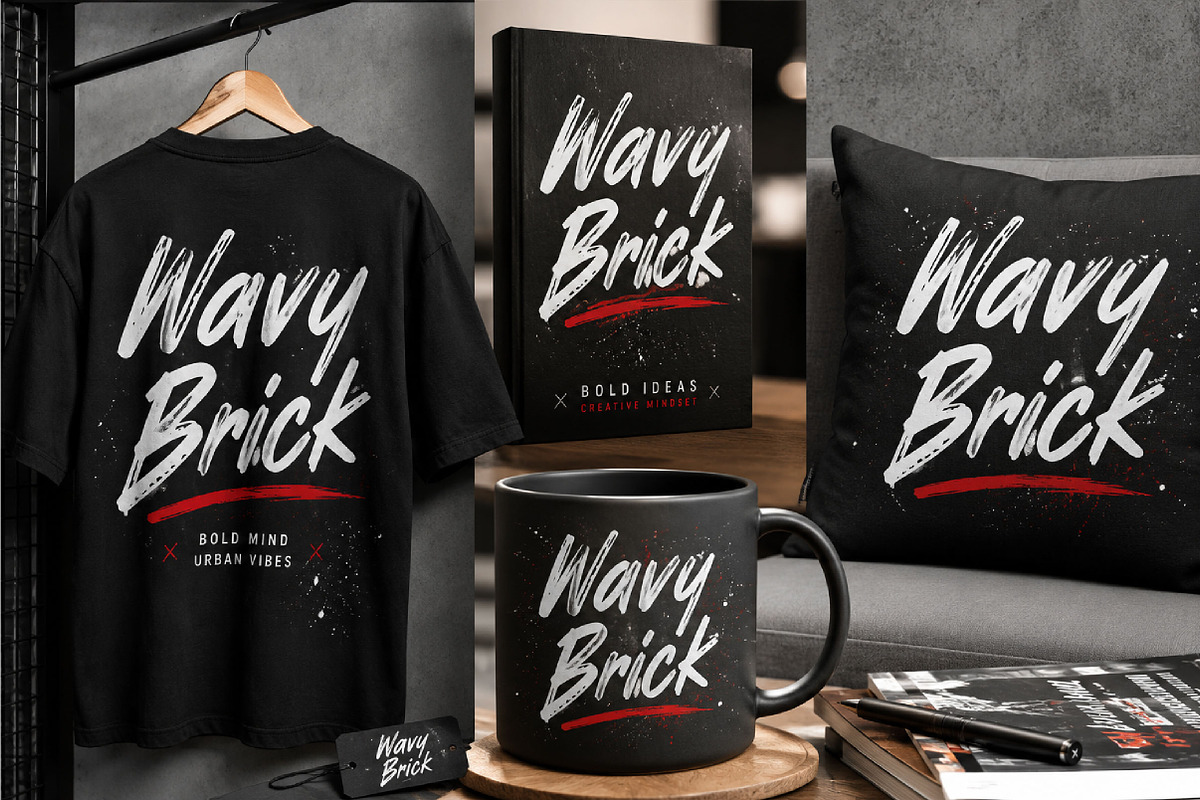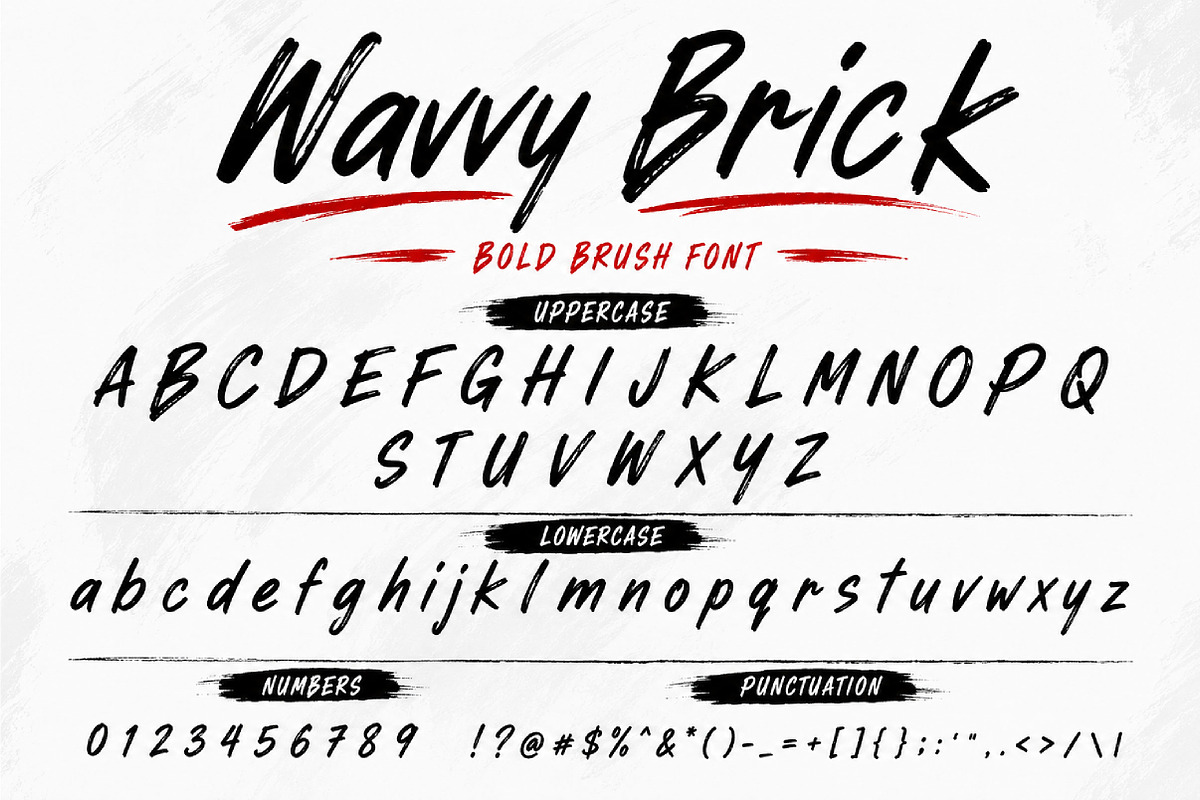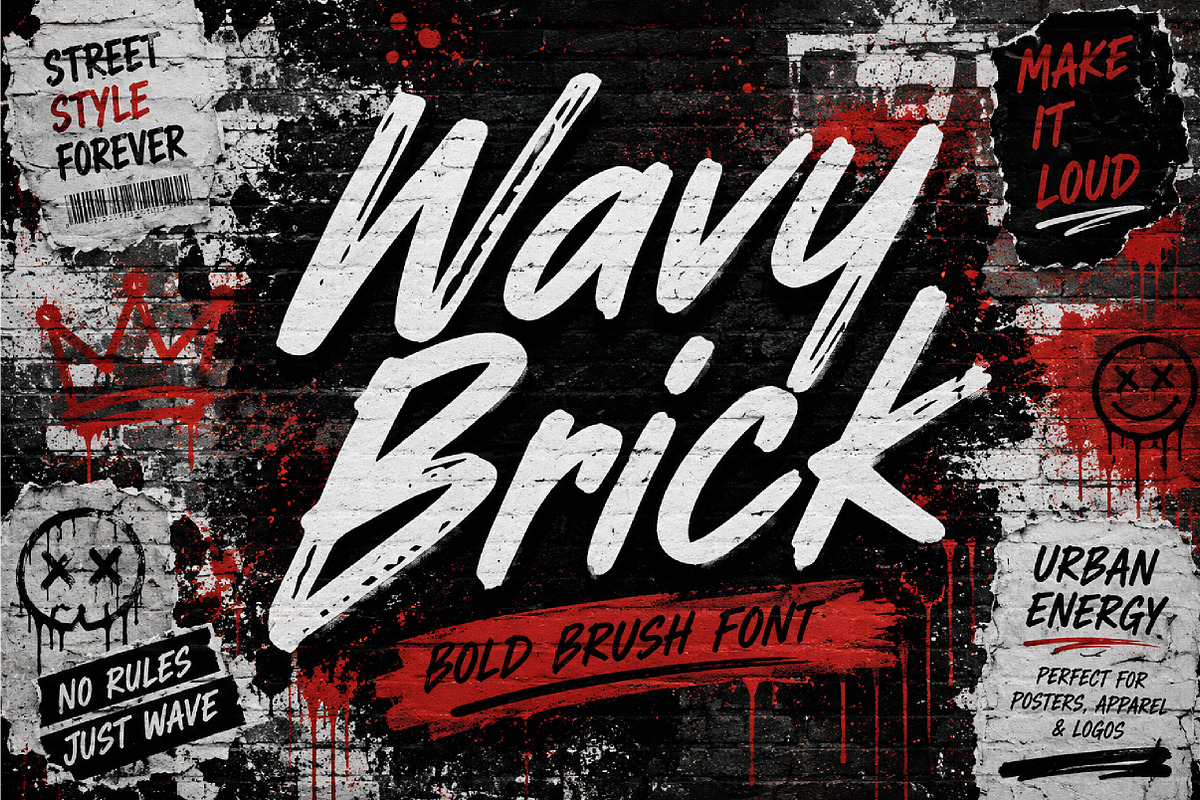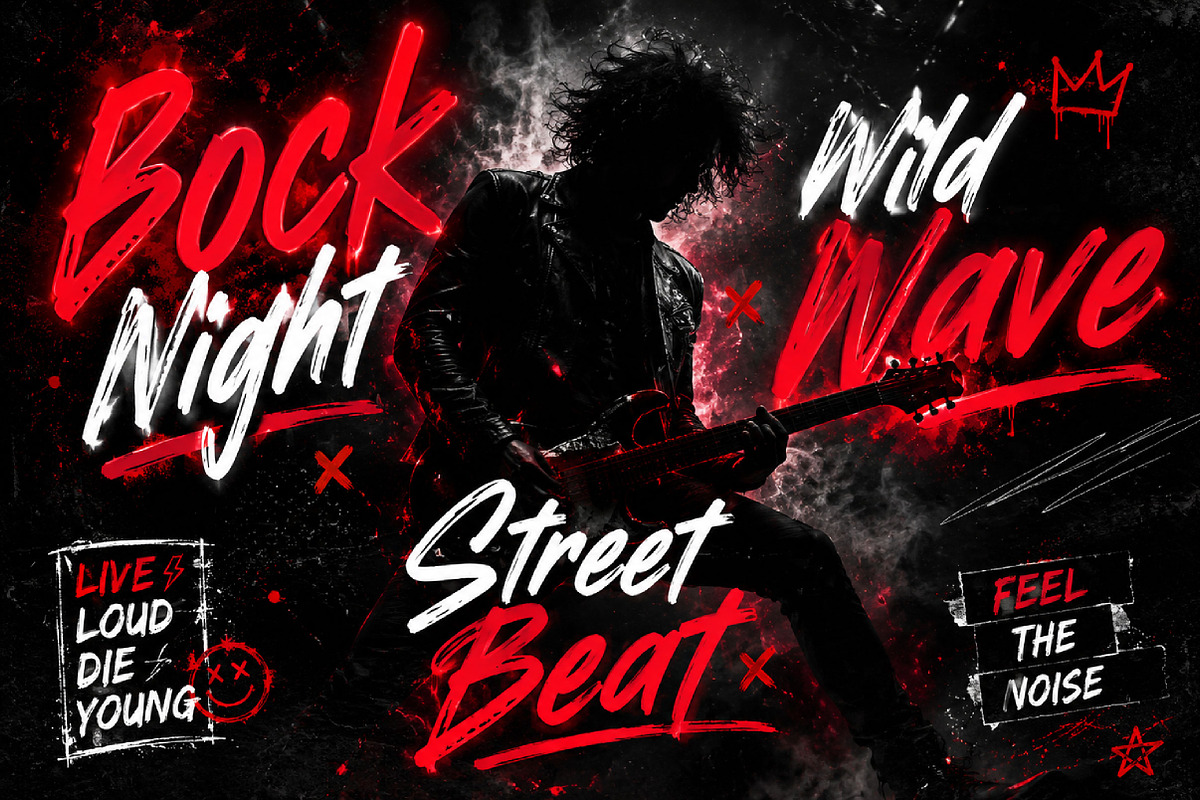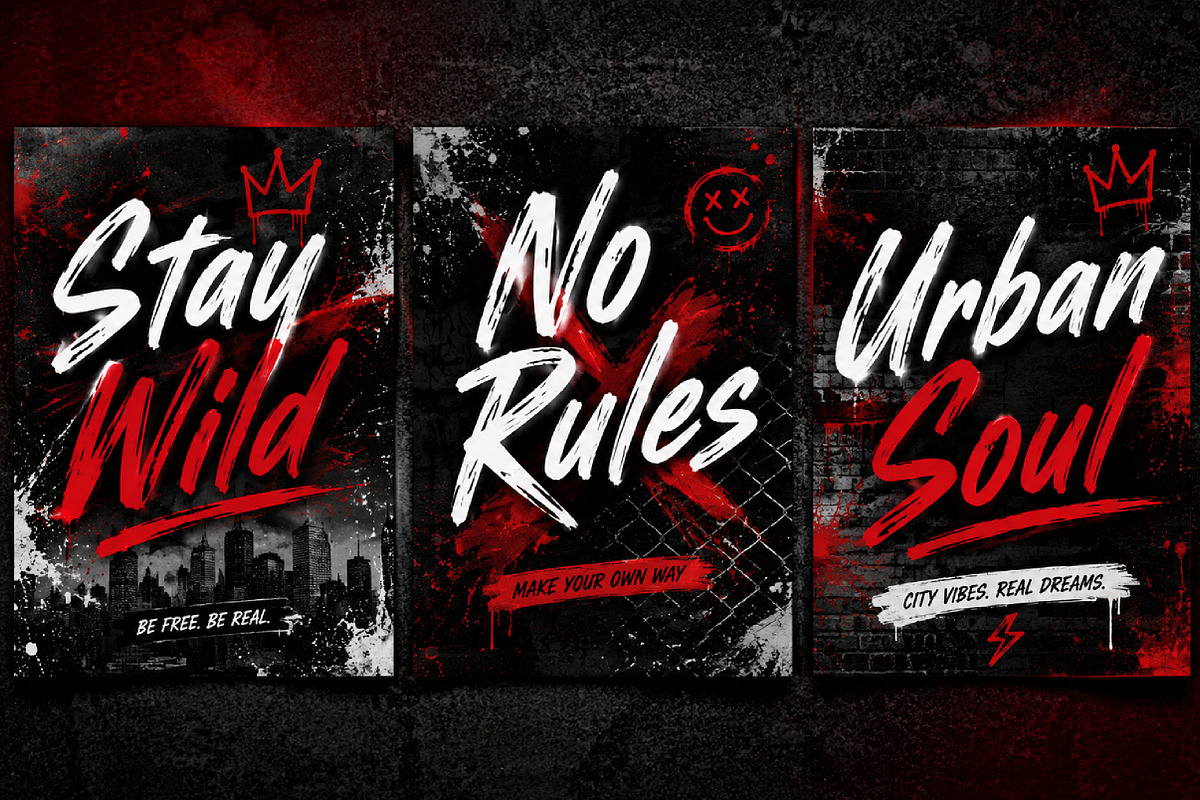
Wavy Brick
Wavy Brick – Bold Brush Script Font
Wavy Brick is a bold brush script font with energetic strokes and handmade texture, perfect for logos, apparel, posters, packaging, social media graphics, and modern branding.
Wavy Brick is a dynamic brush script display font designed with bold movement, expressive curves, and a natural hand-drawn style. Its rough brush texture and flowing letterforms create a strong, creative, and modern look.
This font is ideal for branding, logo design, streetwear, merchandise, posters, product packaging, music artwork, social media designs, and eye-catching typography. The energetic brush strokes give Wavy Brick a confident and artistic personality.
Whether used for print or digital projects, Wavy Brick adds movement, attitude, and handcrafted charm to your designs. It is a great choice for creators who want typography that feels bold, expressive, and stylish.
Logo design
Branding projects
Streetwear & apparel
Posters
Product packaging
Merchandise design
Music artwork
Website headers
Creative typography
Uppercase letters
Lowercase letters
Bold brush script style
Handmade textured look
Dynamic flowing strokes
Modern display appearance
Great for logos and titles
Suitable for print and digital use